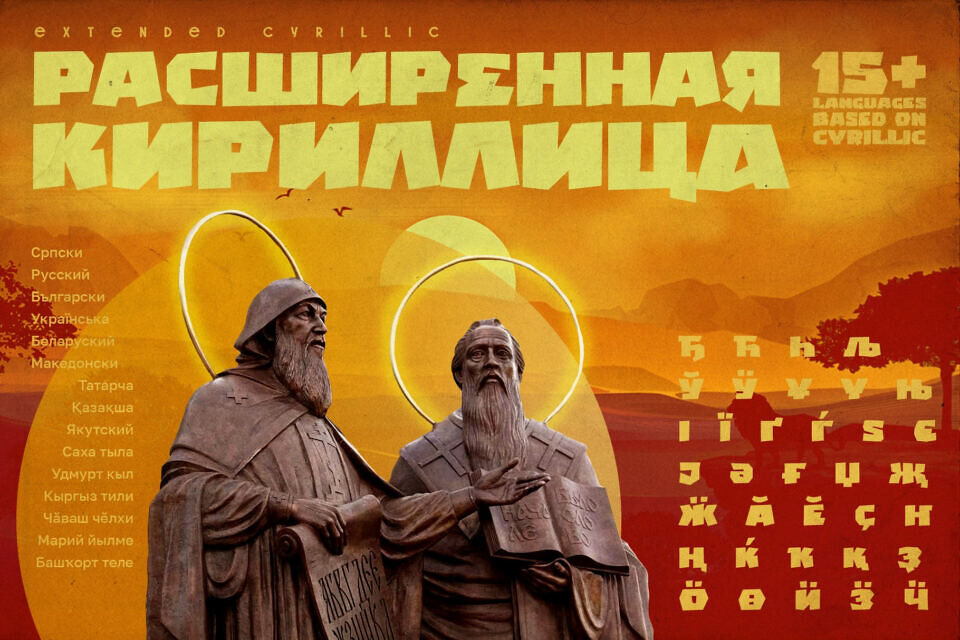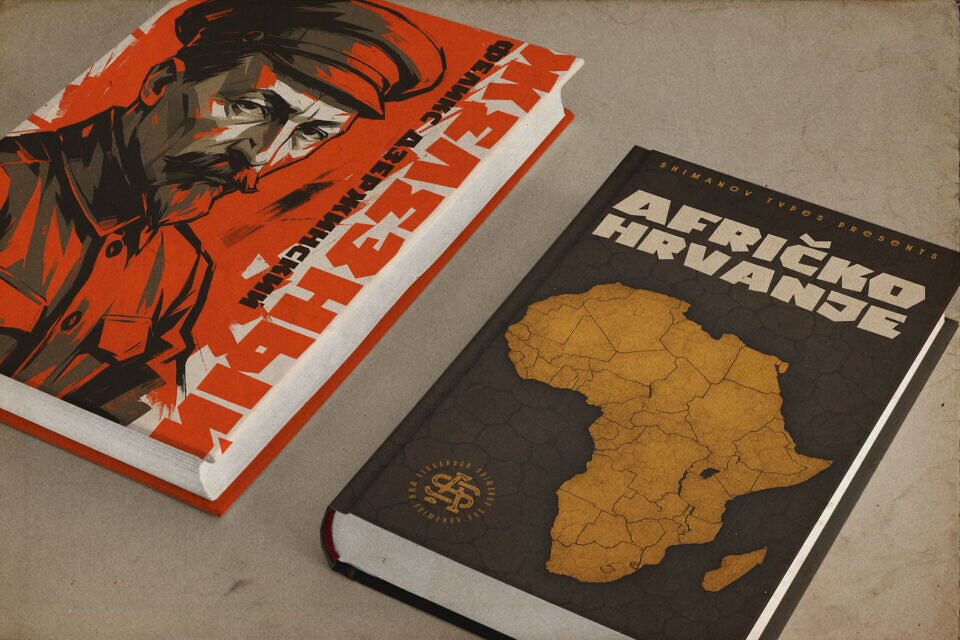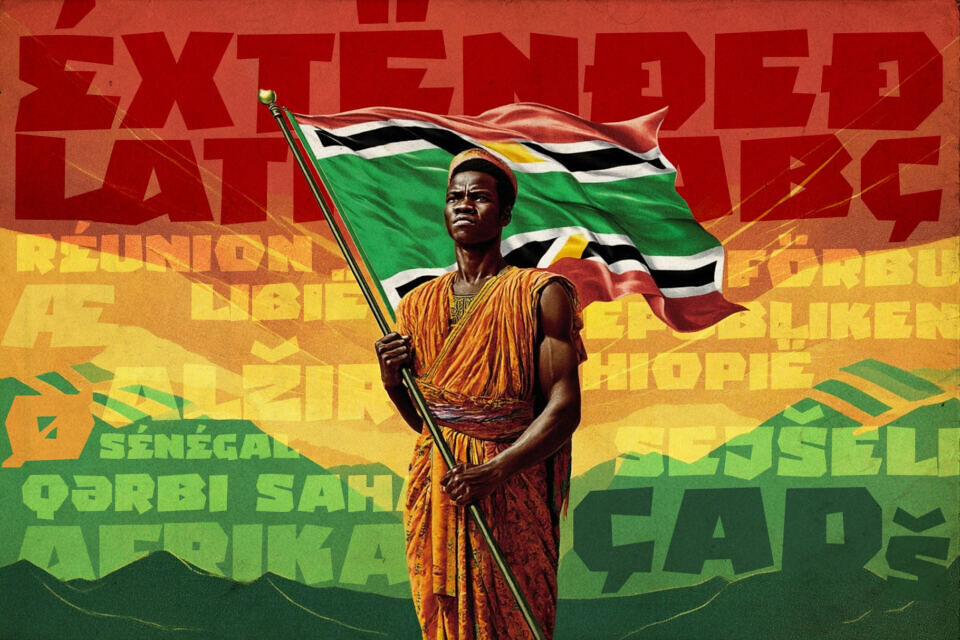
In the mid-20th century, the world was shaken by a powerful movement for freedom and independence on the African continent. This struggle was supported worldwide, including in the USSR, where artists created vibrant propaganda posters.
ST-Africa revives the spirit of revolutionary struggle and is dedicated to a free, anti-colonial Africa.
Recommended use: packaging, film, books, and posters. It serves as a striking display font.